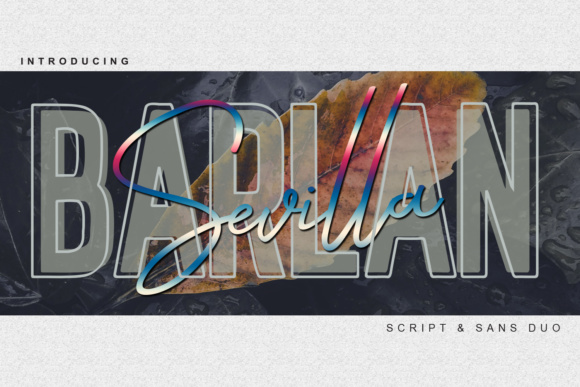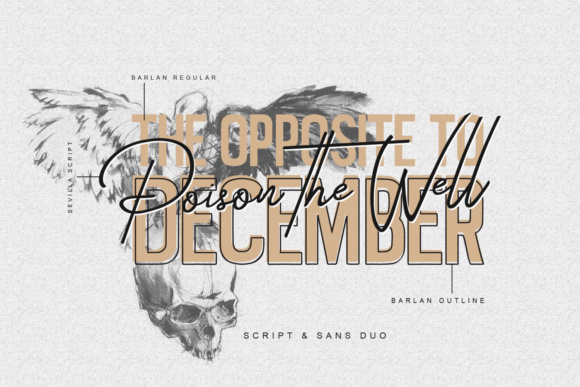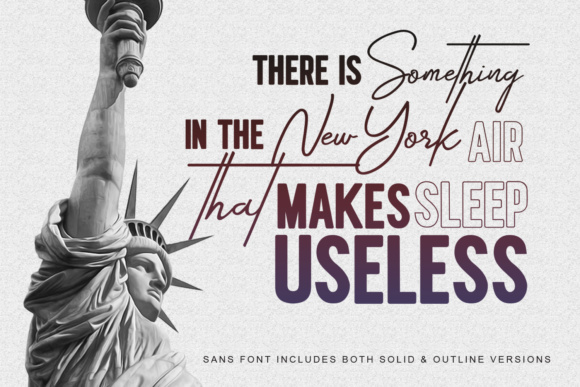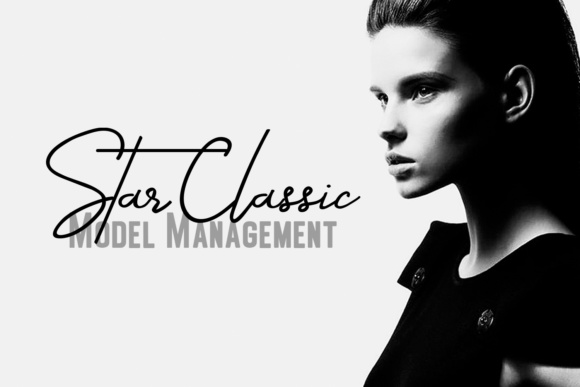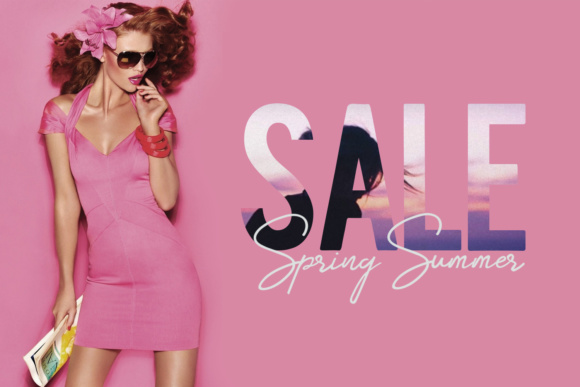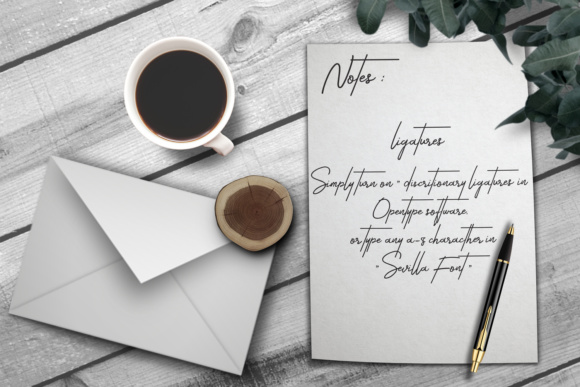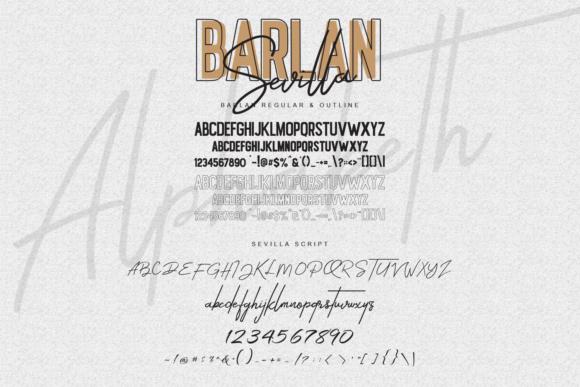
Barlan & Sevilla Duo Font
About Barlan & Sevilla Duo Font
Barlan & Sevilla Duo is a classy, contemporary pair of script and serif fonts. With a stylish expressive script companion, Barlan & Sevilla offers beautiful typographic harmony for a diversity of design projects.